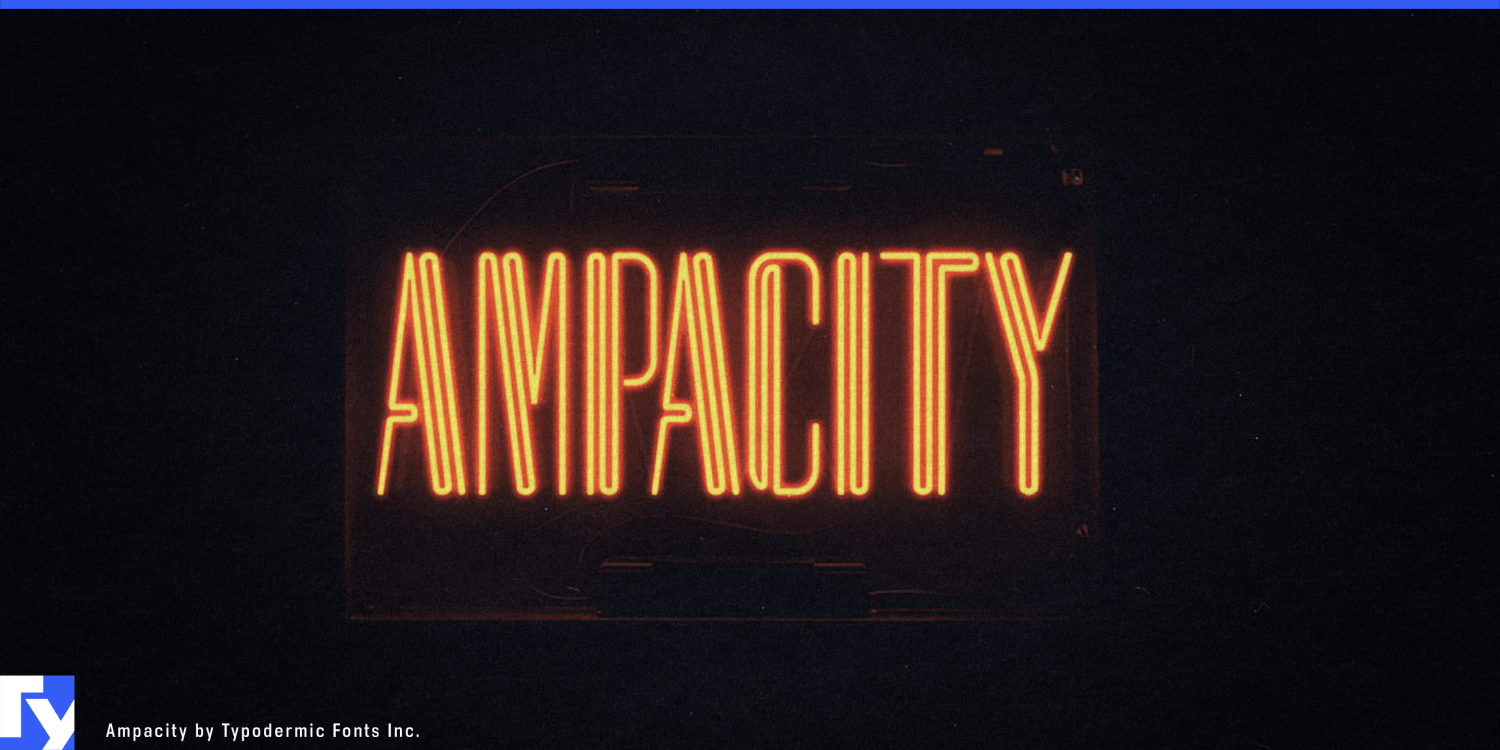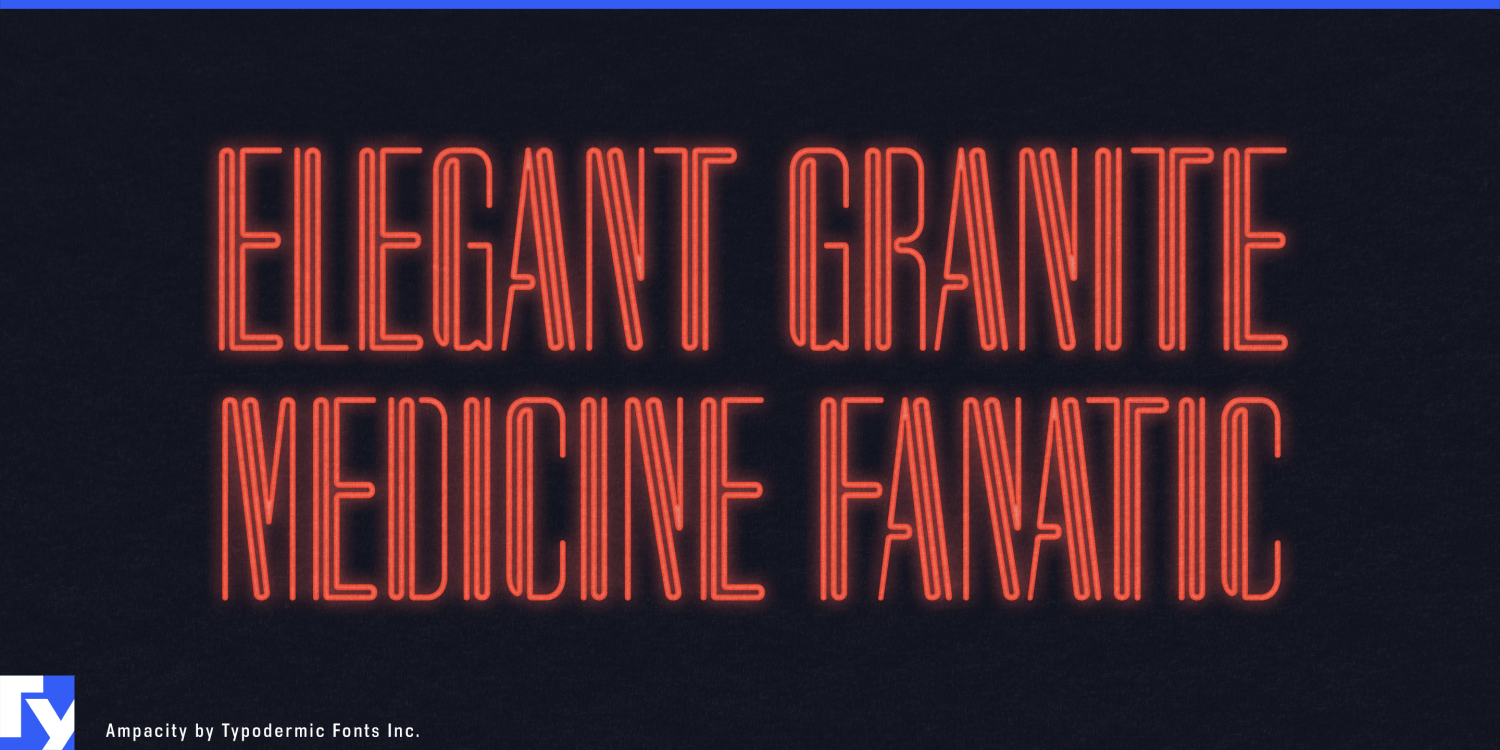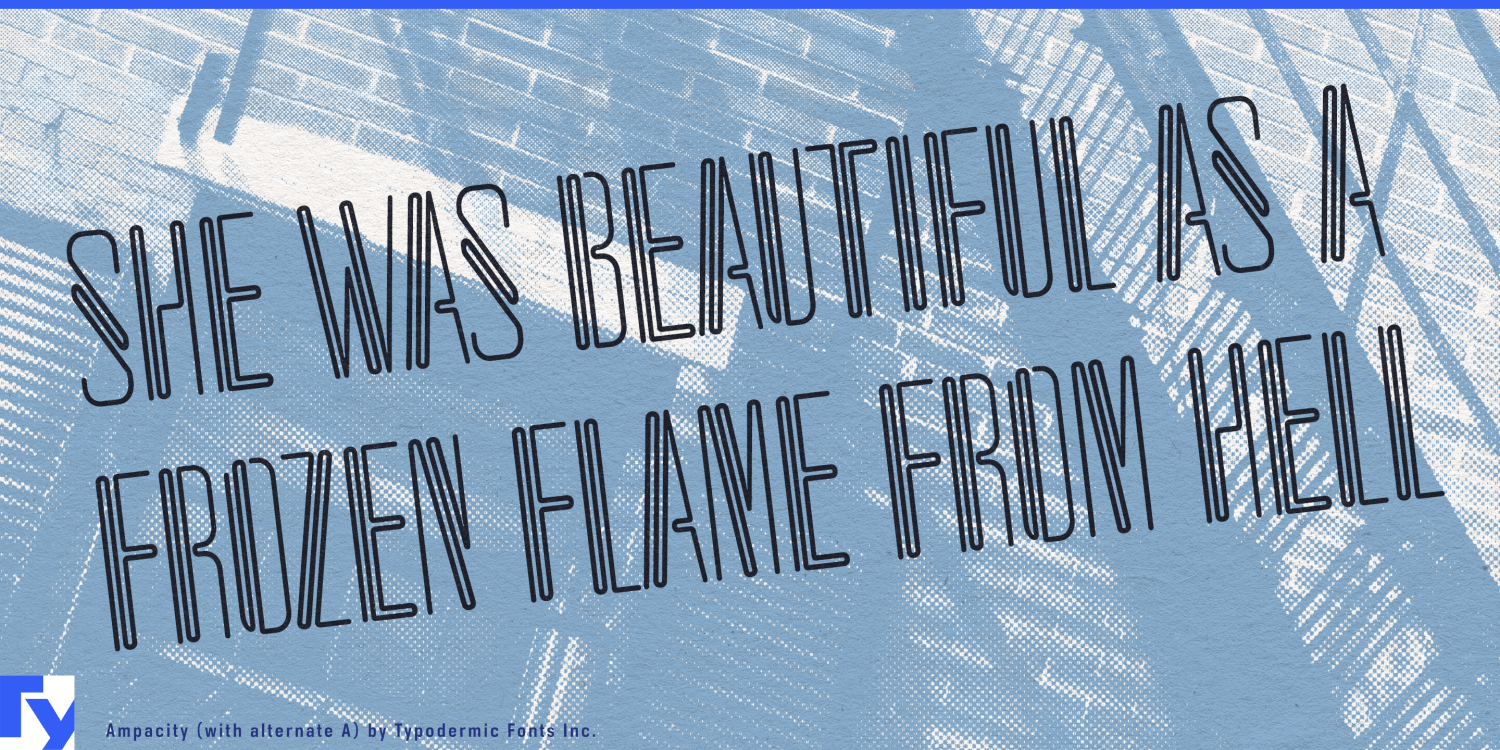
About Ampacity
Step into the dazzling world of Ampacity, where typography meets the mesmerizing allure of neon. This sleek headline typeface doesn’t just catch the eye—it electrifies the entire design landscape. Drawing inspiration from the iconic Led Zeppelin…